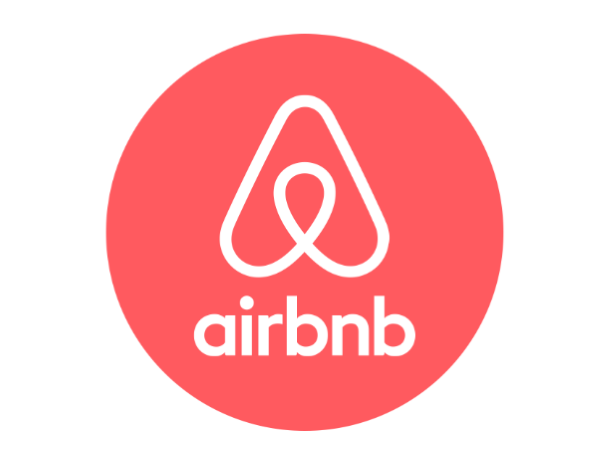
Airbnb font — a custom rounded sans-serif crafted specifically for the brand — is the typography of a company that turned the act of staying in a stranger’s home from an act of necessity into an act of preference, and needed letterforms that could make that proposition feel warm, safe, and trustworthy at global scale. The proprietary typeface’s rounded edges and open, friendly proportions communicate the exact emotional register Airbnb requires: welcoming without being childlike, contemporary without being cold, approachable without sacrificing the confidence of a brand that operates in nearly every country on earth. The freely available Airbnb Font Alternative channels this open, rounded, community-focused typographic warmth.